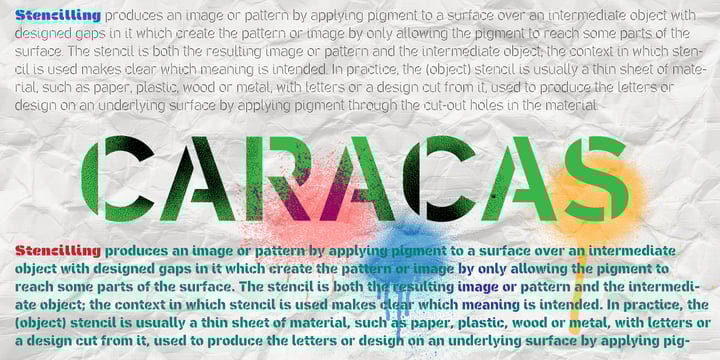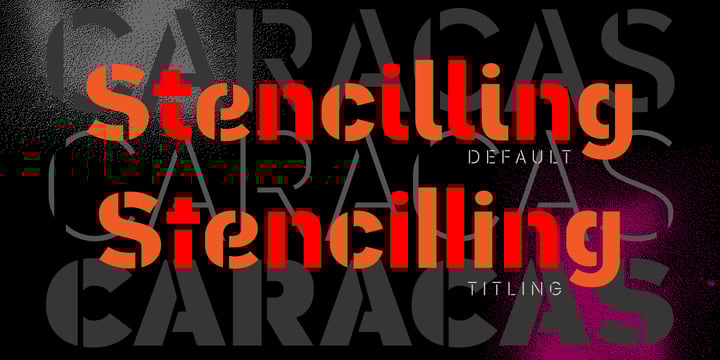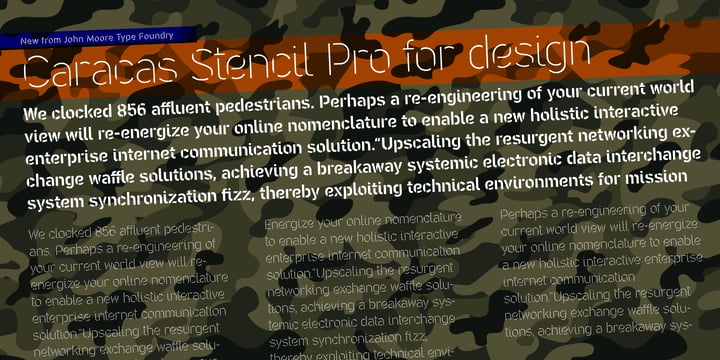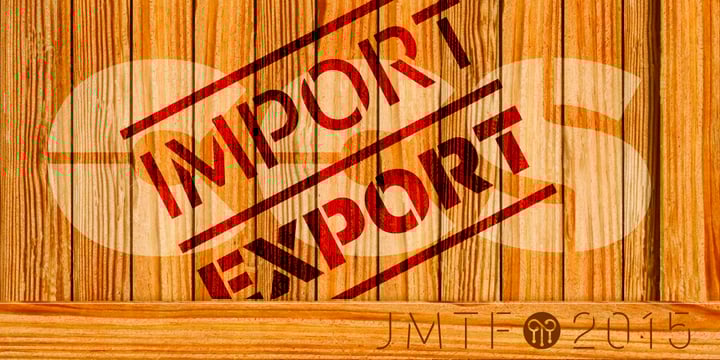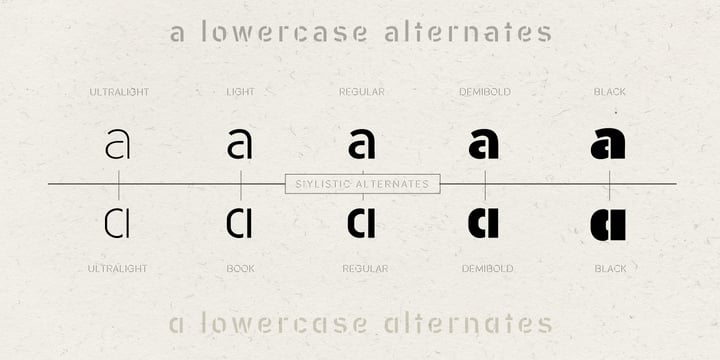
Caracas Stencil Pro
by John Moore Type Foundry
The Caracas Stencil Pro Font Family was designed by John Moore and published by John Moore Type Foundry. Caracas Stencil Pro contains 8 styles and family package options. More about this family
Caracas Stencil Pro is a new family of stencil sans serif fonts, looking friendly, sweet and comfortable to read. Where text flow between straight lines and round by becoming transparent in the interest of readability. Caracas Stencil is ideal for working in small letters and texts of a technical nature. Caracas is a humanistic approach to reading sans forms.
Designers: John Moore
Foundry: John Moore Type Foundry
Caracas Stencil Pro